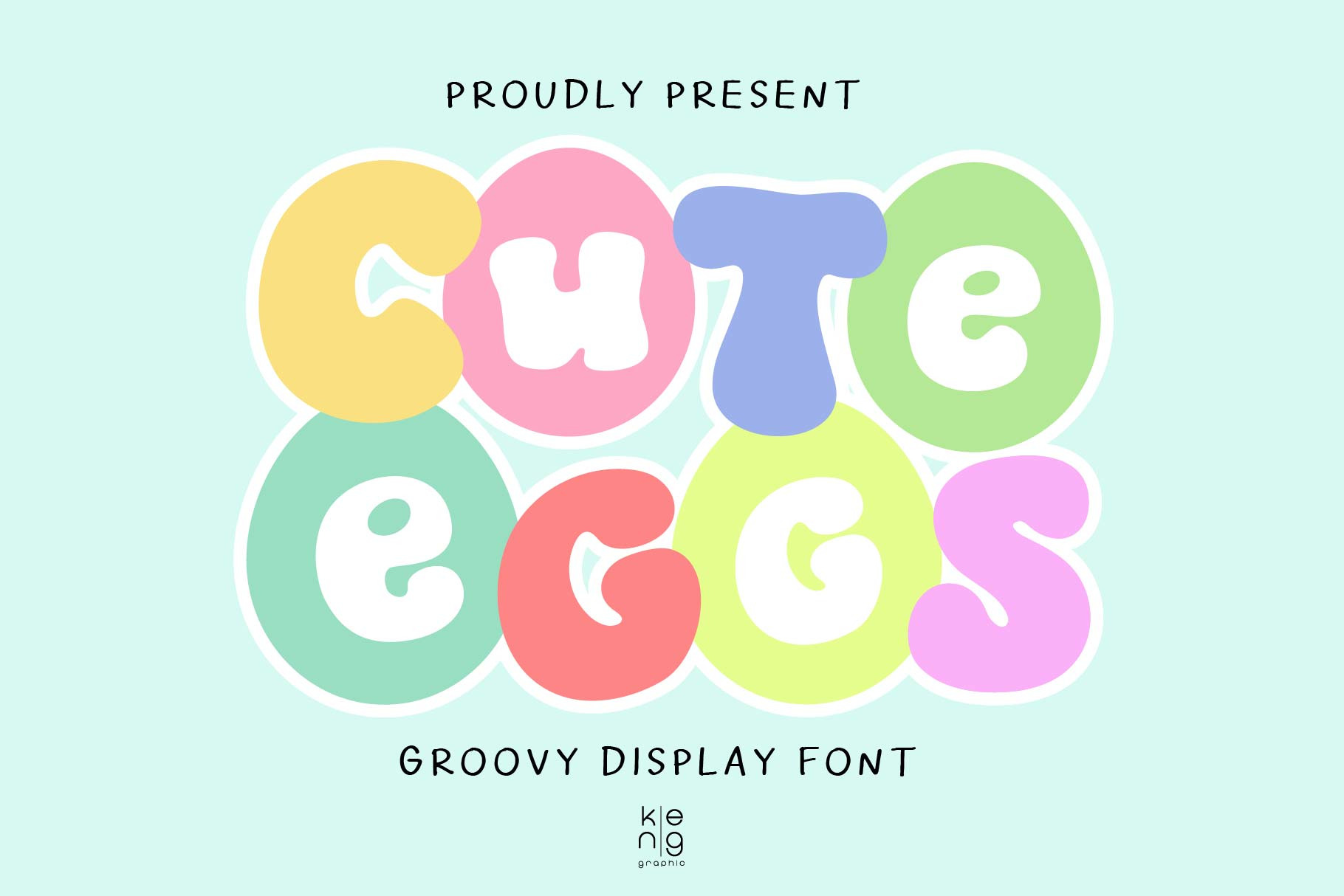
Cute Eggs Font
Introducing ‘Cute Eggs’, an invigorating display font embodying the vibrant spirit of Easter. It seamlessly merges a playful vibe with the captivating essence of eggs. A versatile choice, Cute Eggs is perfect for a wide array of design projects – from sprucing up a t-shirt’s appeal to lending a unique edge to tote bags. It even works wonders for enhancing the appeal of your favourite mug. Indeed, ‘Cute Eggs’ is designed to enhance every article that you wish to add an eggstra-special touch to. Unleash your creativity and let ‘Cute Eggs’ make your designs shine.